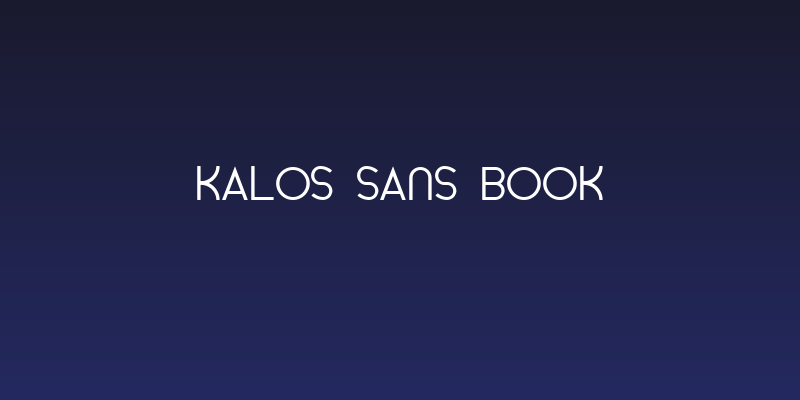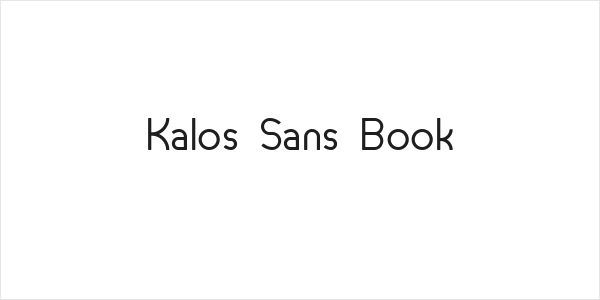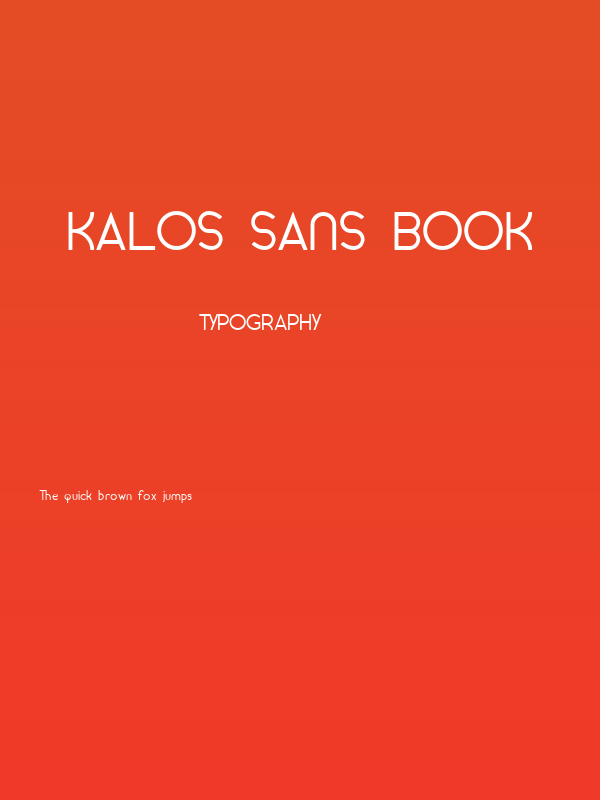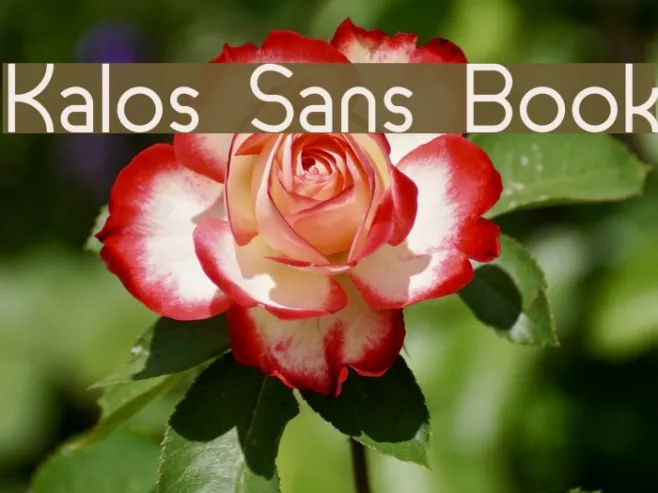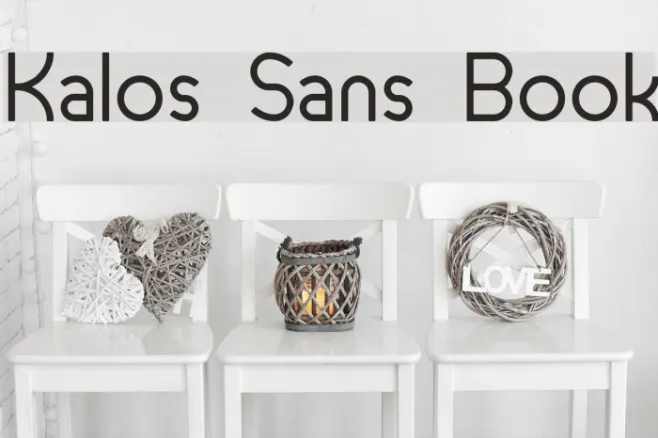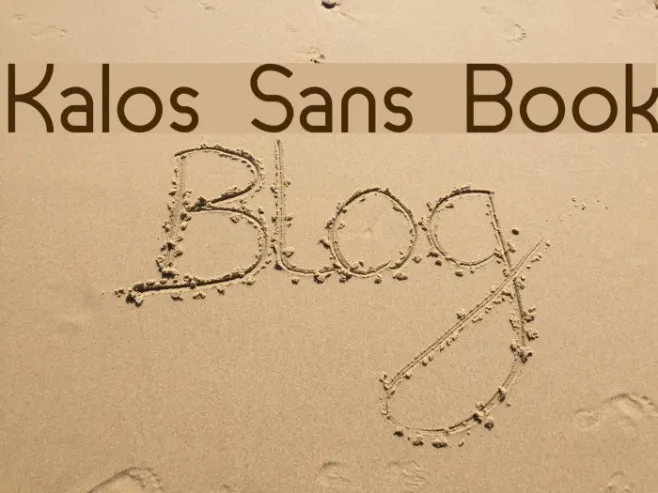
Kalos Sans Book Font
Kalos Sans Book Description
This font features a clean and modern sans-serif design with a geometric structure. The characters are uniform in width, providing a balanced and harmonious appearance. The uppercase letters are bold and assertive, while the lowercase letters maintain a friendly and approachable feel. The numerals are clear and easy to read, making them suitable for various applications. Special characters are well-defined, adding versatility to the font. The overall style is sleek and contemporary, making it ideal for digital and print media.